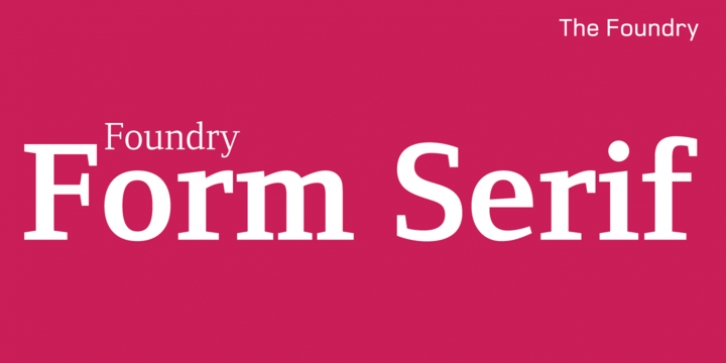
Foundry Form Serif was published by The Foundry. Foundry Form Serif contains 9 styles and family package options.
Foundry Form Serif was drawn concurrently as a sans and a serif, with matching capital and x-height proportions for harmonious use. The Foundry Form Serif design has a strong horizontal emphasis, slightly condensed proportions for economic use of space, and open counters ensuring legibility at small sizes. Both families function independently. Foundry Form Serif includes a true italic; the angularity and sharp serifs help to retain maximum clarity, with the contrasting stroke widths adding refinement.